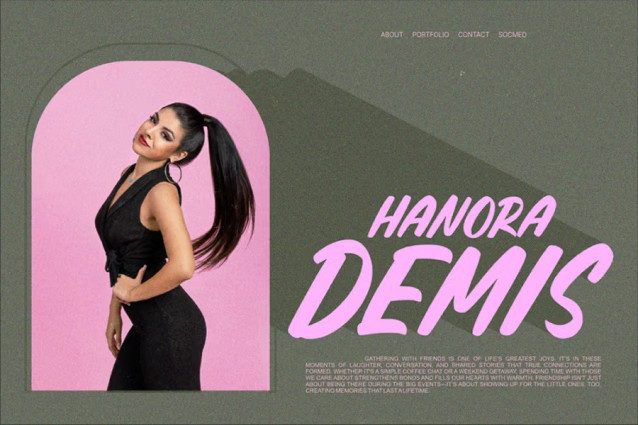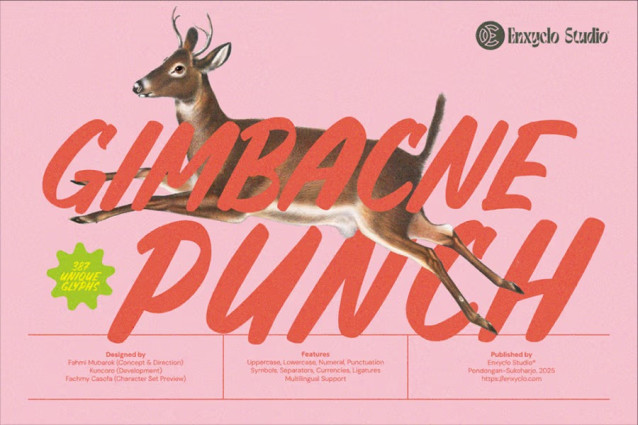
Gimbacne Punch Font
Gimbacne Punch Font is a bold and energetic brush font, perfect for projects that need a lively, artistic touch. With its thick strokes, dynamic curves, and modern-retro feel, this font is ideal for branding, posters, social media graphics, and more. The playful and handcrafted look makes it stand out in any design. Bring energy and creativity to your work with Gimbacne Punch!